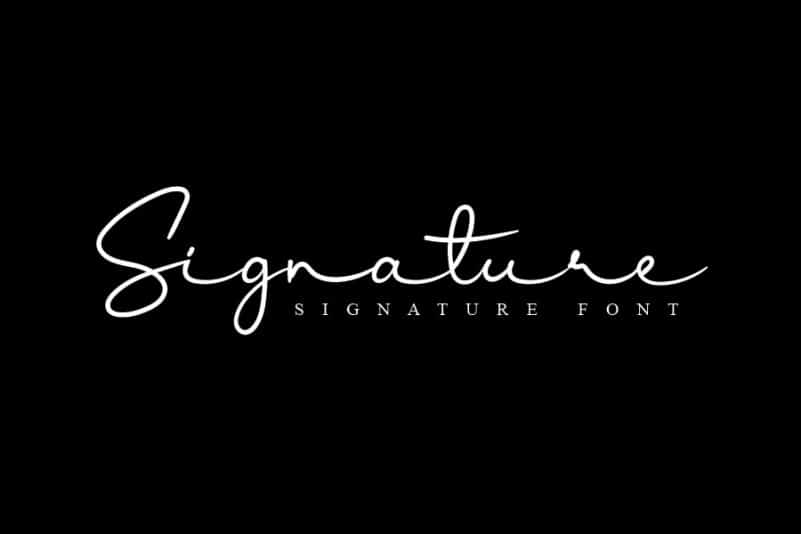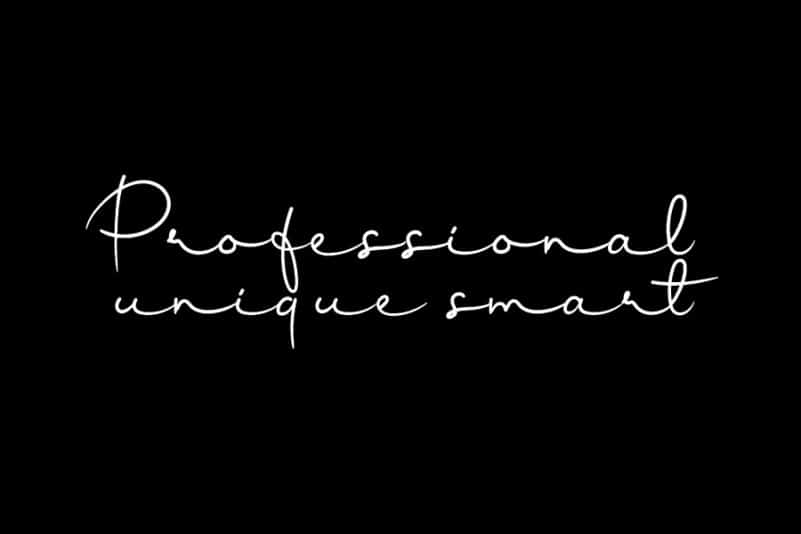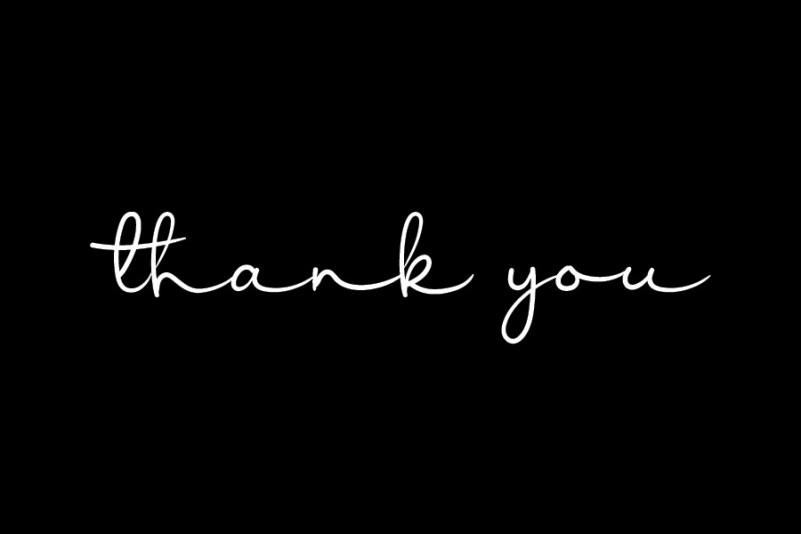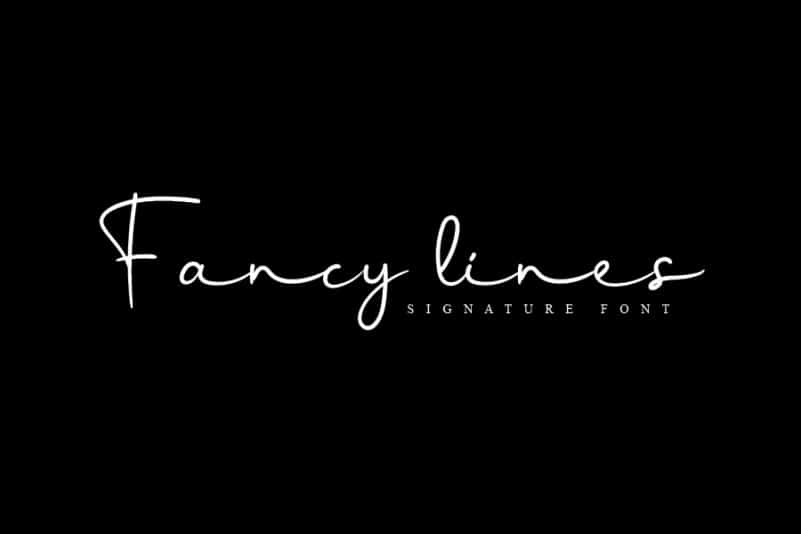
Kamellia Handwritten Font
Kamellia Handwritten Font is a delicate and flowing handwritten font. It looks stunning on wedding invitations, thank you cards, quotes, greeting cards, logos, business cards and every other design which needs a handwritten touch.
The latest style letters are perfect for wall displays, wedding invitations, social media post logos, advertisements, product packaging, product designs, labels, photography, watermarks, invitations, stationery, and any project that requires taste handwriting.